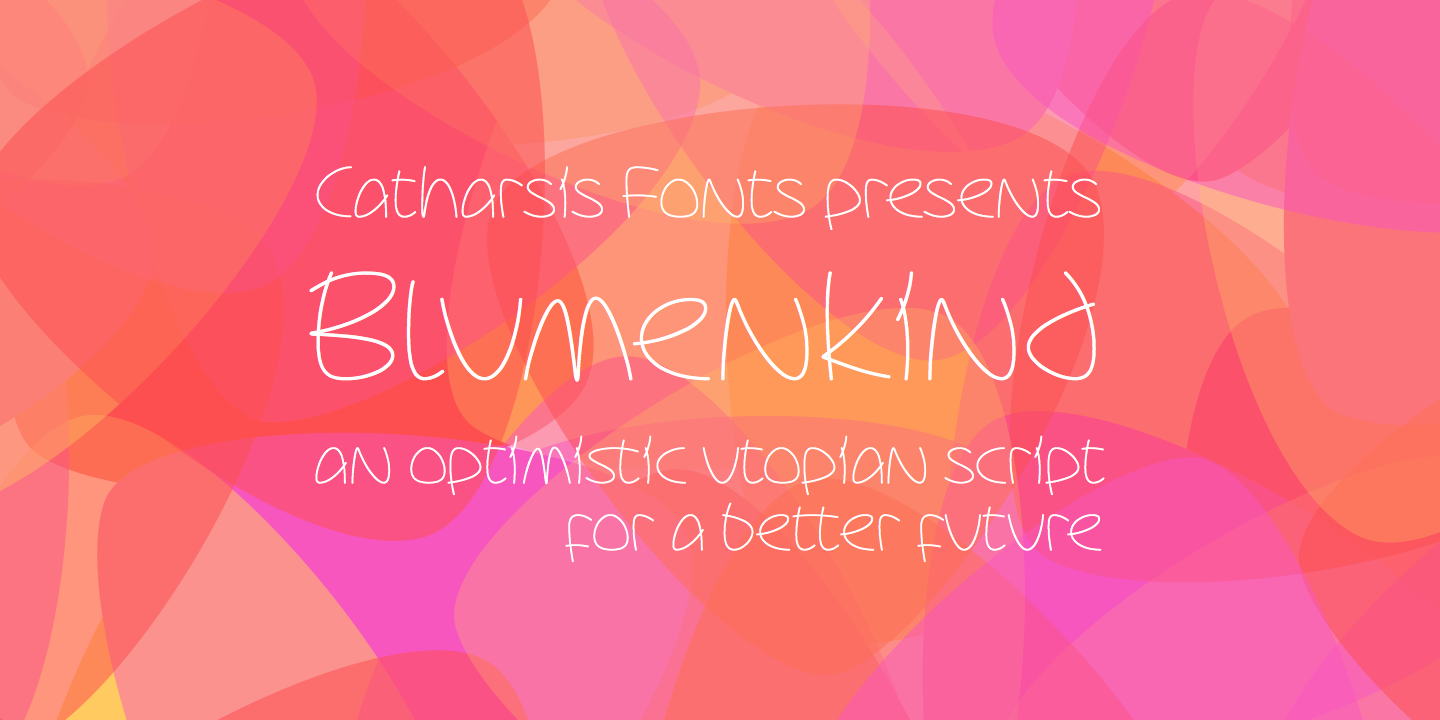
Blumenkind Font is a charming and whimsical typeface that beautifully embodies the free-spirited essence of bohemian aesthetics, flower power, and handcrafted artistry. Its organic, often flowing lines and gentle imperfections give it an unmistakable natural charm, making it an excellent choice for projects aiming to convey warmth, peace, and a touch of nostalgic innocence. Imagine it perfect for indie music festival branding, bohemian fashion labels, artisanal craft packaging, heartwarming greeting cards, serene wellness retreat promotions, or artistic book covers with a natural theme. This font excels in environments where a sense of bespoke quality, gentle elegance, and an unmistakable natural artistry are paramount. It’s particularly effective for conveying harmony, growth, and a connection to nature, ensuring your message not only stands out but also resonates with an irresistible grace and earthy charm.
What makes Blumenkind Font truly exciting is its ability to infuse designs with a sense of genuine human touch and an infectious, peaceful spirit. It often features subtle variations in its letterforms, delicate swashes, or a slightly irregular baseline that mimics real hand-lettering, giving each character a unique personality and depth. This font isn't just about displaying text; it's about cultivating a serene and beautiful visual experience, injecting your designs with a sense of natural artistry and tranquil elegance. It has a powerful ability to feel both incredibly delicate and surprisingly versatile, making it an ideal tool for designers who want their work to convey harmony, authenticity, and a truly memorable visual impact. Blumenkind Font Free Download empowers brands and creatives to project an image that is refined, organic, and full of natural beauty.
The Blumenkind Font family typically offers a range of options to enhance its versatility and expressive capabilities. You'll often find it available in a strong, legible regular weight that best showcases its unique hand-drawn style. Some versions might include stylistic alternatives for certain characters or a set of ligatures that further emphasize its handcrafted appeal and allow for more customized typographic compositions, mimicking natural variations. The comprehensive character set generally covers standard Latin characters, numbers, and a selection of punctuation marks, ensuring that Blumenkind Font is suitable for a wide variety of creative and commercial applications. Its distinctive and memorable presence ensures that any project featuring Blumenkind Font will leave a strong, lasting impression.